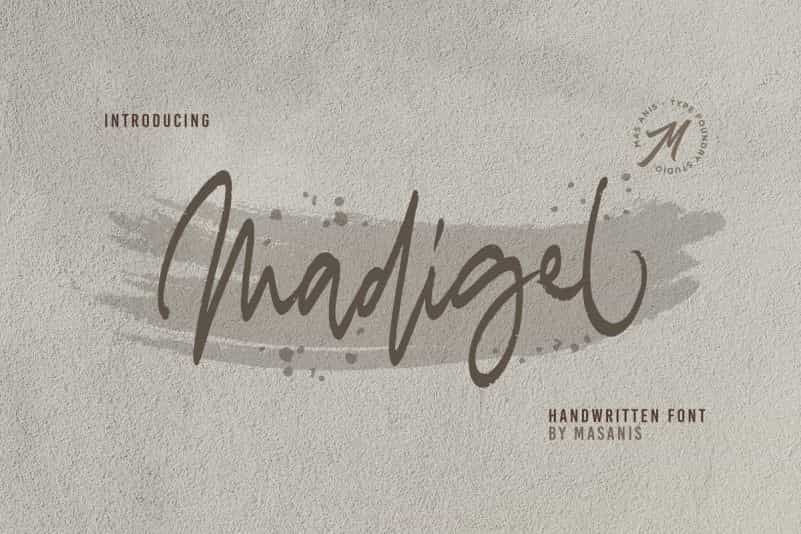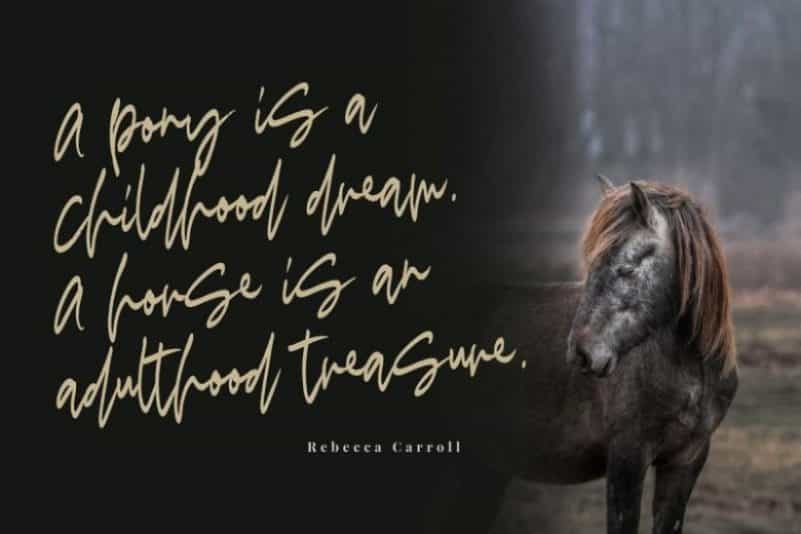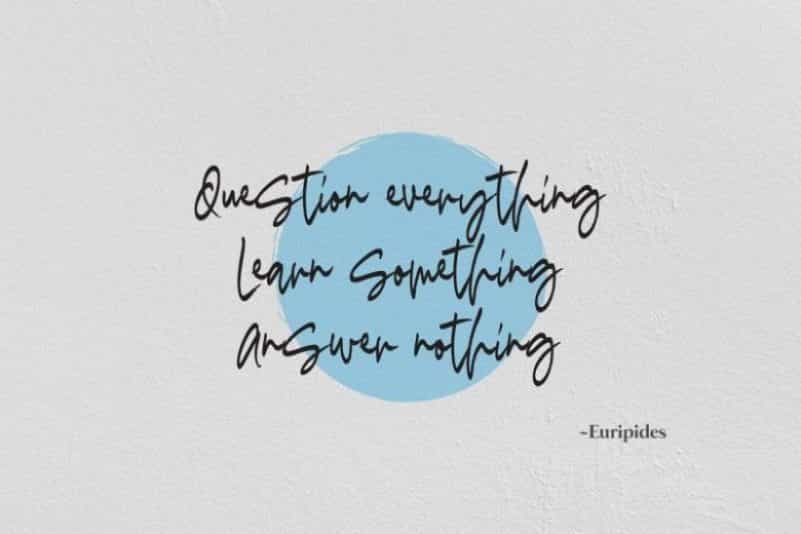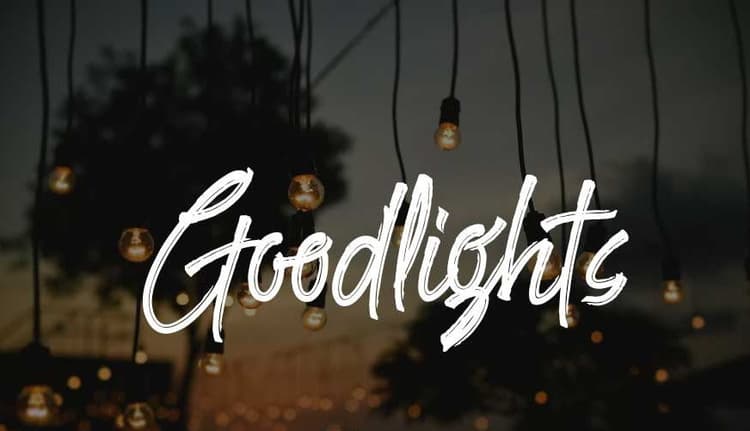
Discover Madigel Font, part of the Brush Handwritten collection—a versatile and unique font perfect for adding a personal touch to your projects. Download it for free and enjoy crafting designs with style, from invitations to social media posts. This font is available exclusively for personal use, giving you the freedom to create without limits. Unlock your creativity with Madigel Font today!
This is a casual font and can be used for logo, invitation, stationery, wedding designs, social media posts, advertisements, product packaging, product designs, label, photography, watermark, special events and etc and fonts are available in both TTF & OTF format.